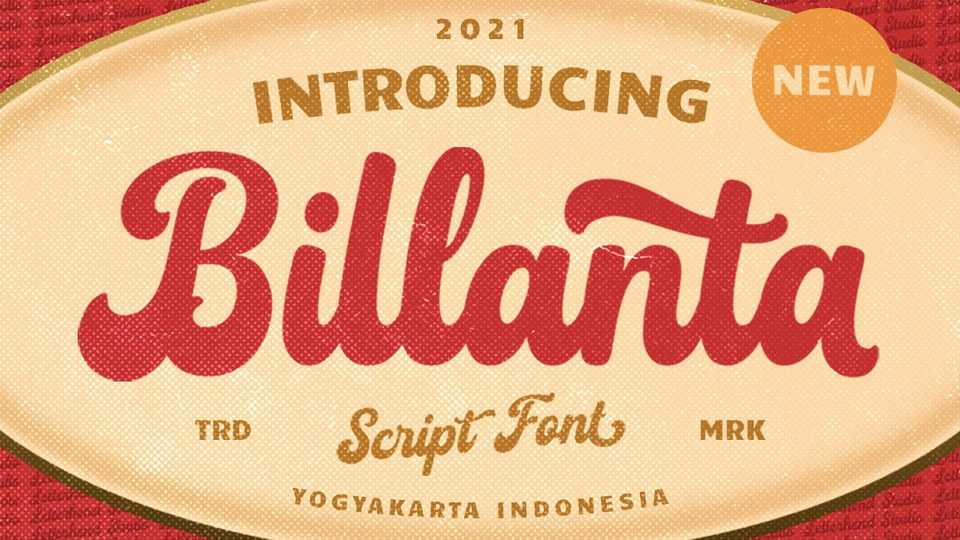
Download Billanta font, a retro bold script typeface which will bring you back to 60s feel. Billanta font perfectly made to be applied especially in logo, and the other various formal forms such as labels, magazines, books, packaging, fashion, t-shirt prints or any type of advertising purpose.